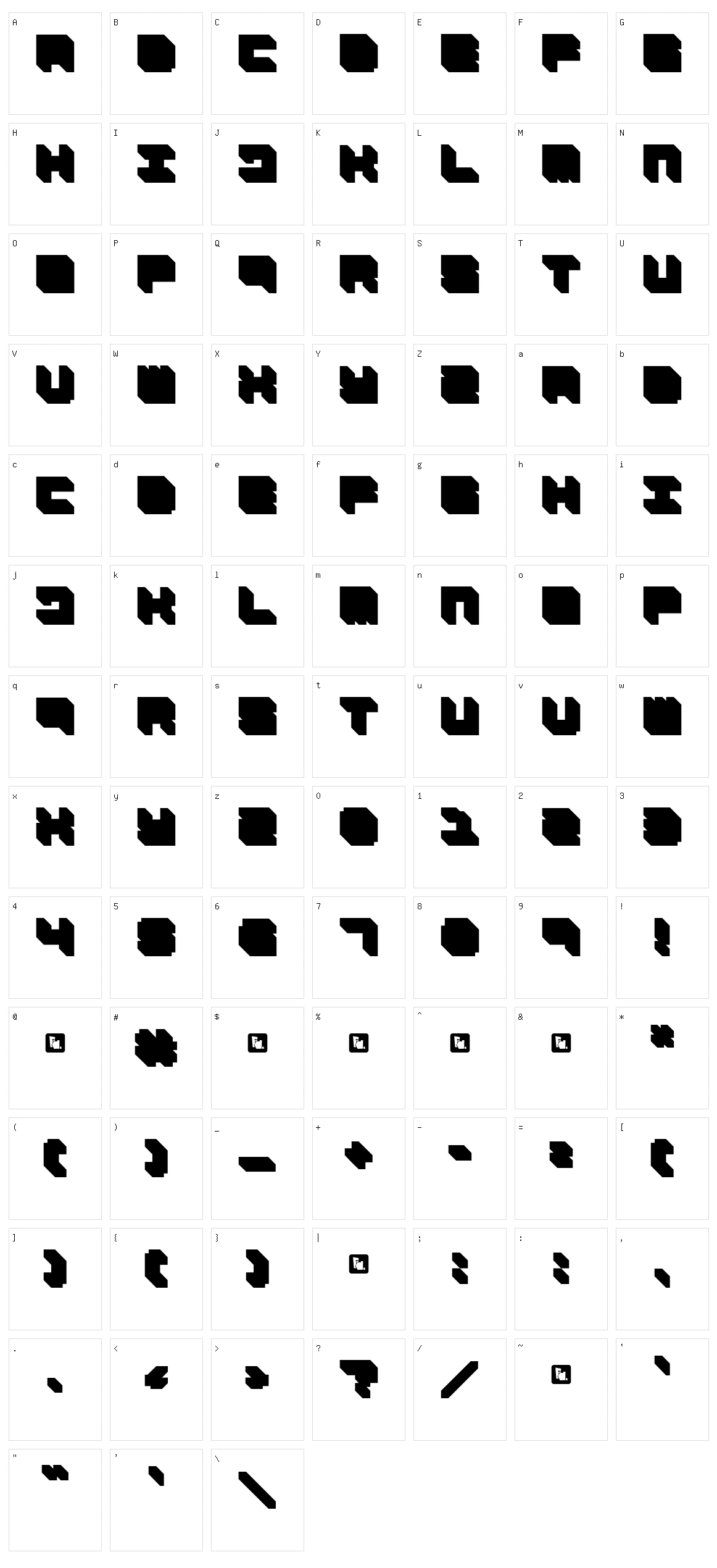
The free font FD Necromancer is carefully designed by Font Deli, showcasing a thoughtful balance of creativity and usability and falls under the Square font style. When you download the ZIP file, it contains only 7.13 KB of font files, making it lightweight and quick to download. Please review the license details below to understand permitted usage and distribution rights. If license information is not available, we recommend using this font for personal projects only or contacting the author directly for commercial usage permissions.